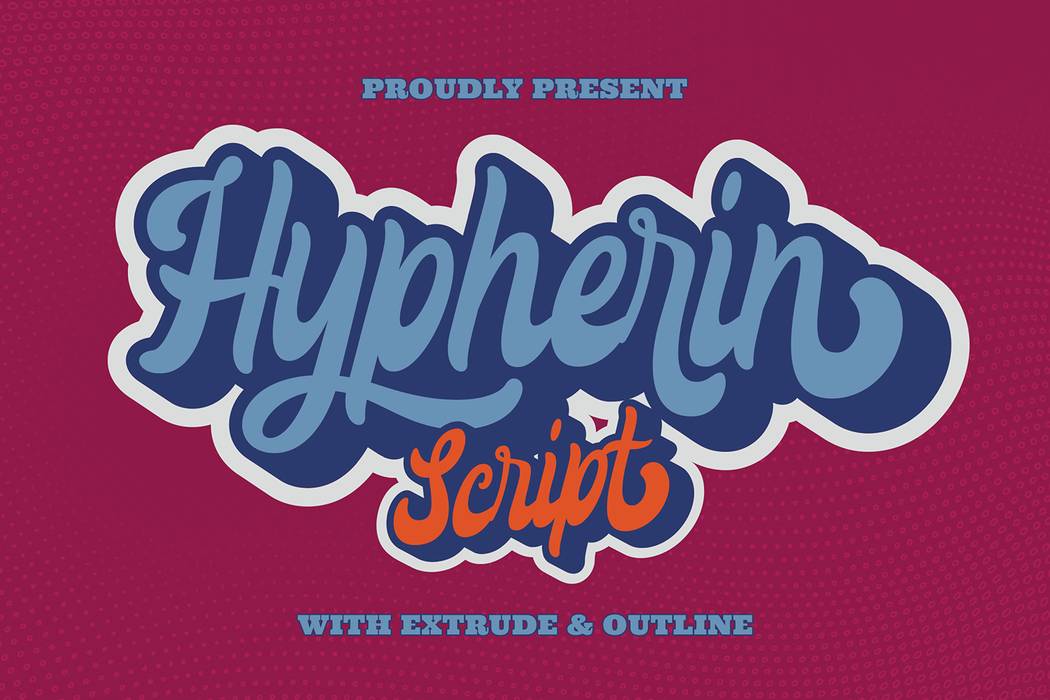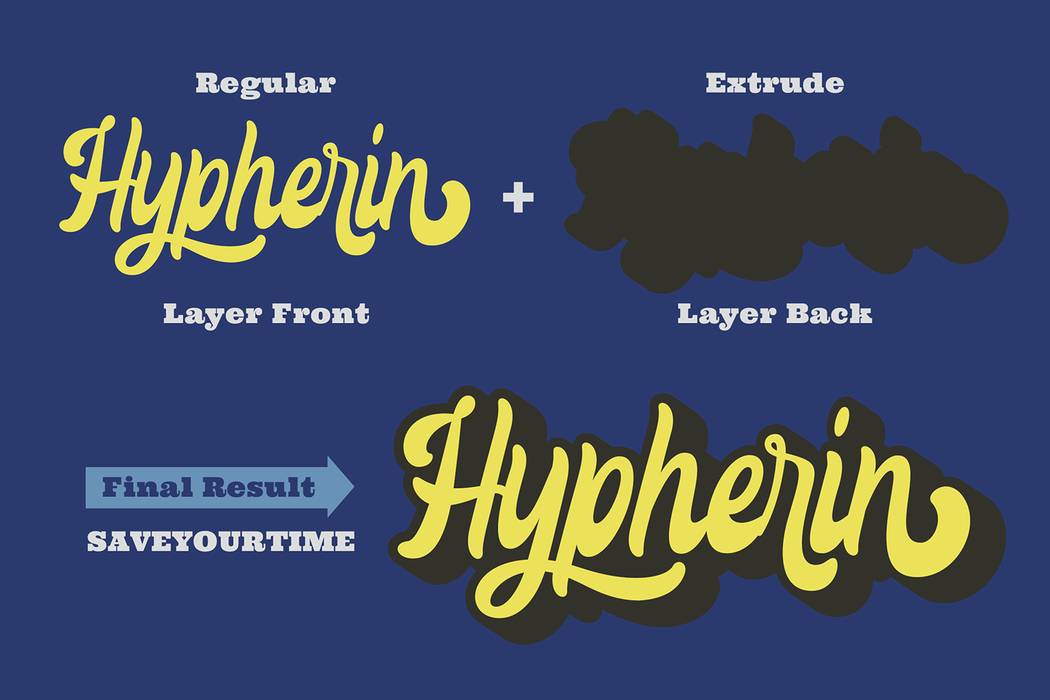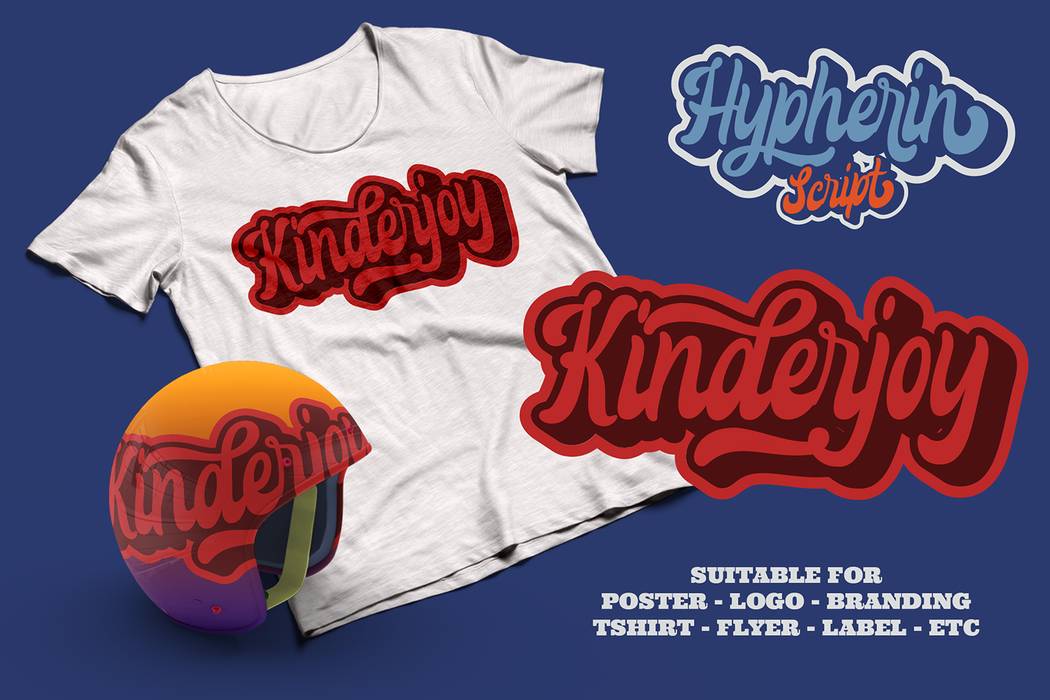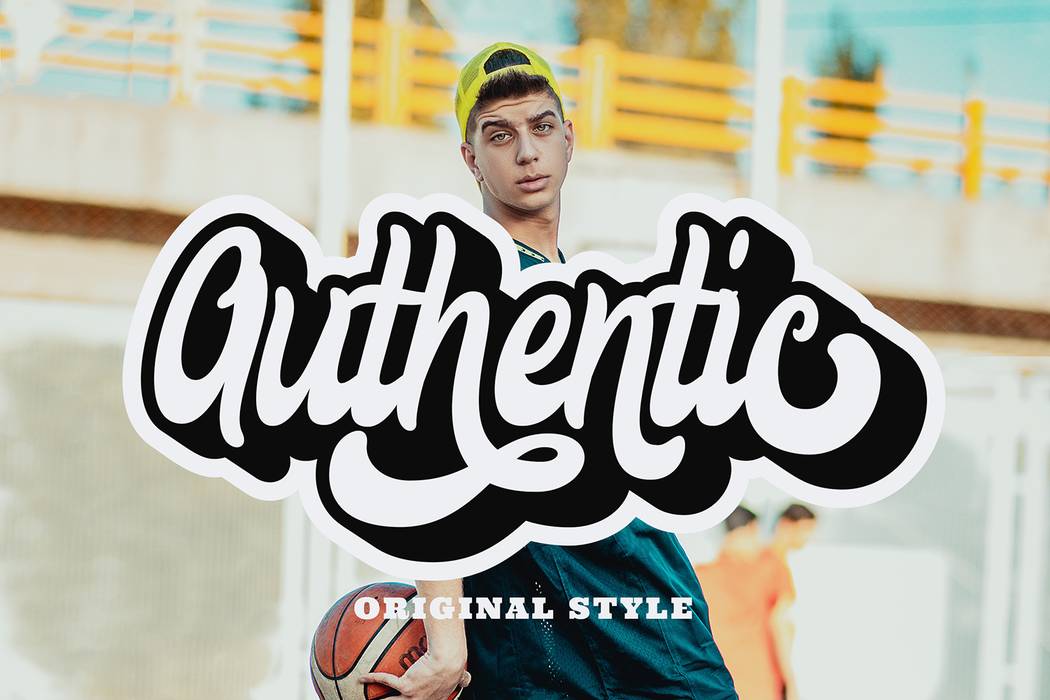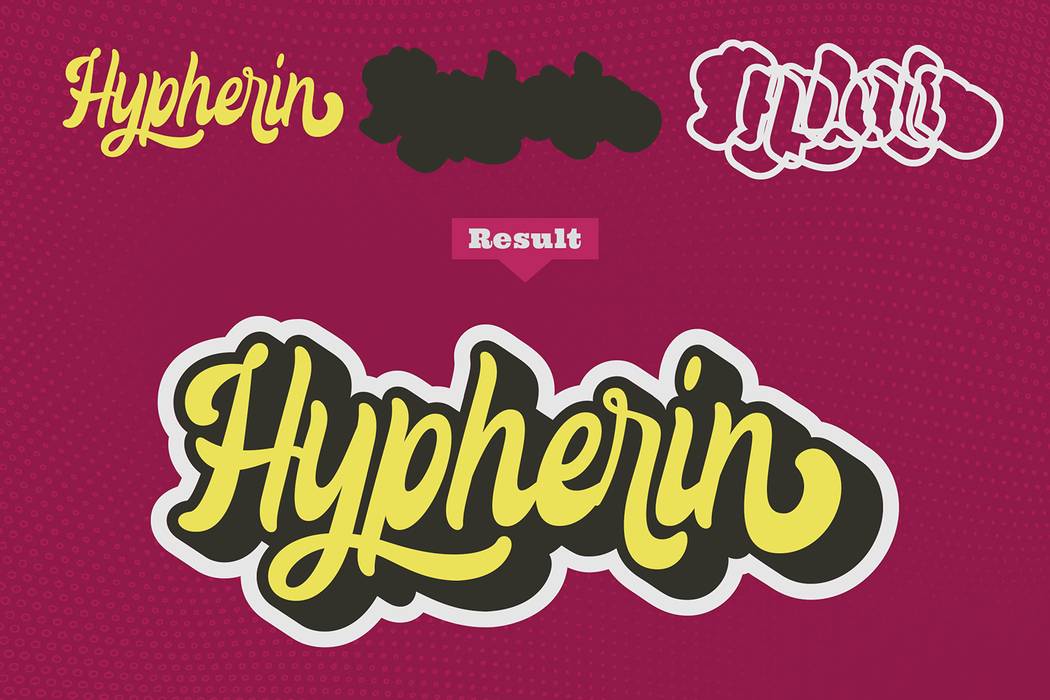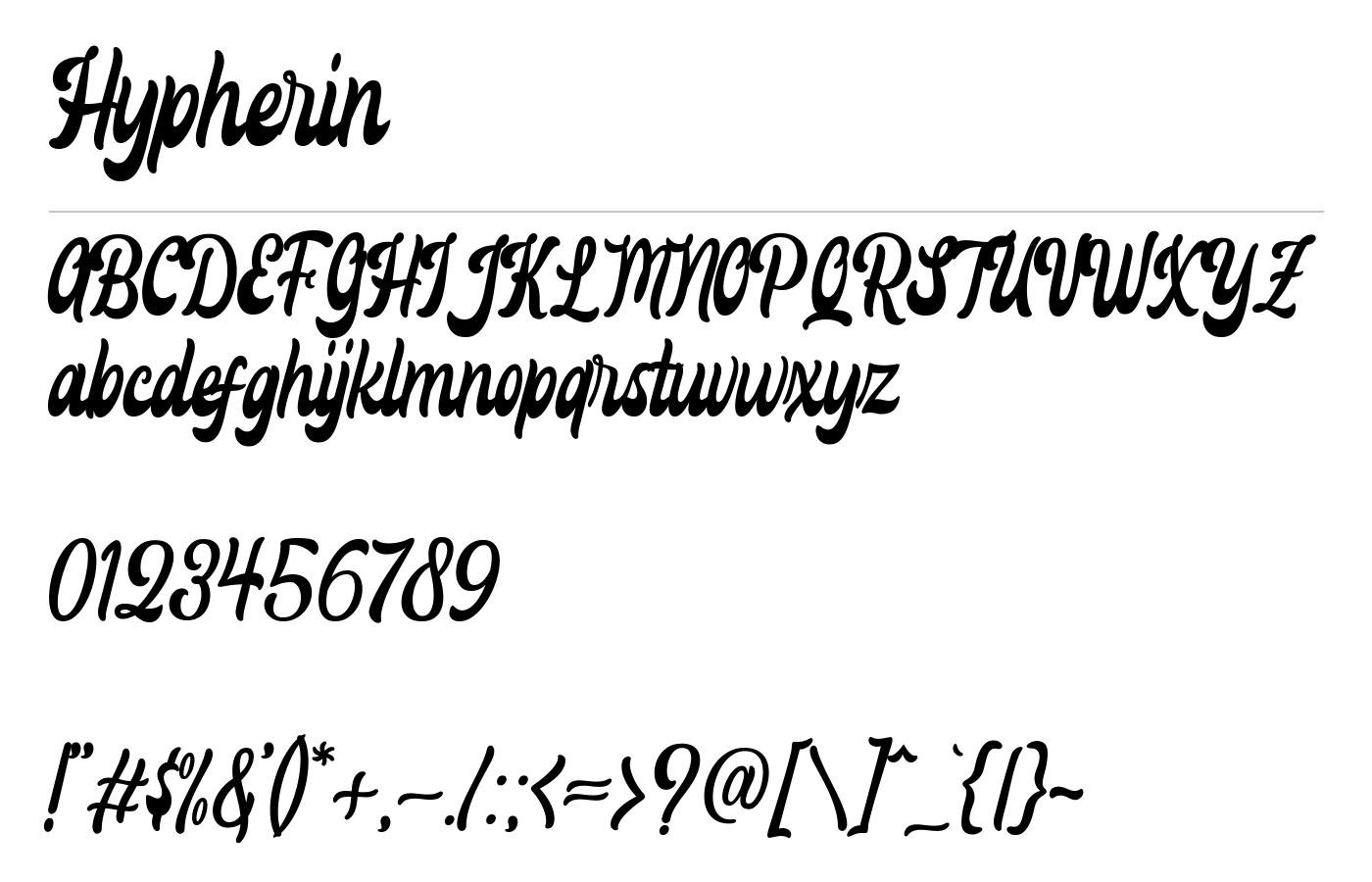
Hypherin is a bold, script-style font with a lively, hand-lettered feel that combines smooth, flowing strokes with moderate contrast for a dynamic look. Its upright, rounded letterforms and connected characters evoke a friendly and approachable personality, making it ideal for creative branding, packaging, and eye-catching headlines. This font works well where a personal, artistic touch is desired, adding warmth and charm to designs.
Hypherin Font
About Hypherin Font
| Font family | Hypherin Font |
| Release date | 2021-07-07 |
| Designer | Dida Ahluddin |